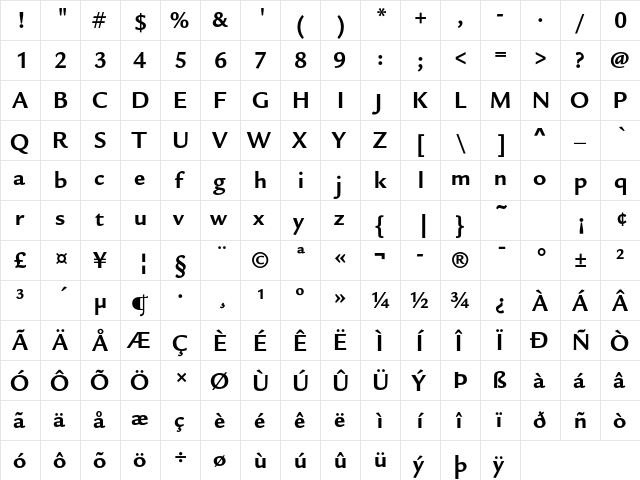
ITC Legacy Sans Std Bold Font Preview
ITC Legacy Sans Std Bold
ITC Legacy Sans Std Bold Font Details
| Designer | Ronald Arnholm |
Design Context for ITC Legacy Sans Std Typeface
ITC Legacy Sans Std is a composed and adaptable typeface that performs quietly and consistently across a wide range of design contexts. Its bold stroke weight gives it real presence on the page.